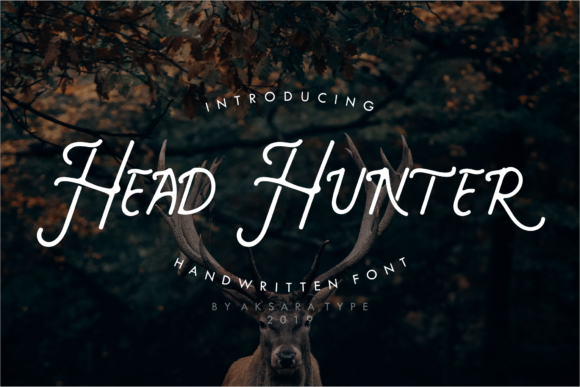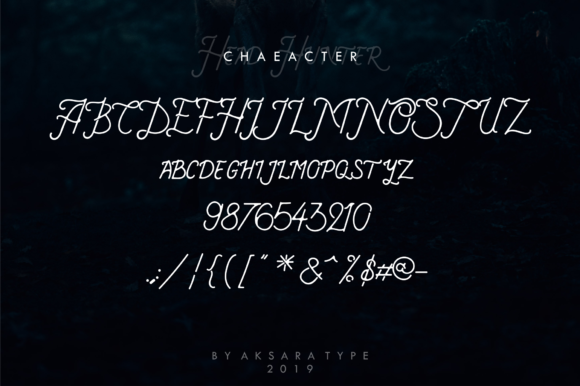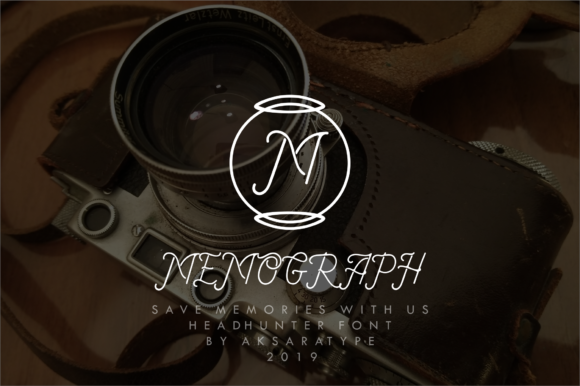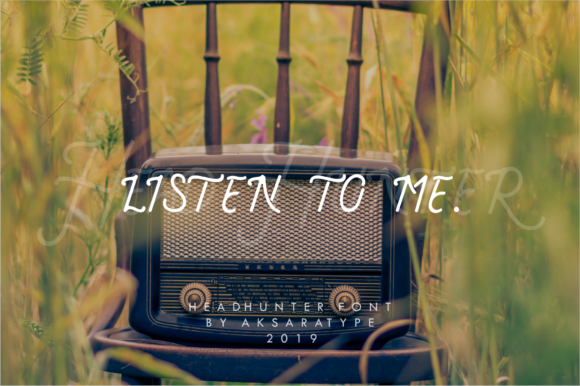
HomeScript FontsHead Hunter Font Script Fonts Head Hunter Font FacebookXPinterestWhatsApp Head Hunter Font Poster 2 Head Hunter Font Poster 3 Head Hunter Font Poster 4 Head Hunter Font Poster 5 About Head Hunter Font Head Hunter is classic handwritten font with a vintage touch. Its unique look will make any design stand out! DOWNLOAD NOW People also explored Breadr Sunday Vintage Font Cannodya Font Holdenisty Font Bentosa Beach Sea Font Doblier Font Angika Jaya Font Playbill Font 410 0 TagsHead Hunter Font Previous articleAnderella FontNext articleRastapick Font LEAVE A REPLY Cancel reply Comment: Please enter your comment! Name:* Please enter your name here Email:* You have entered an incorrect email address! Please enter your email address here Website: Save my name, email, and website in this browser for the next time I comment. Personal Use Free Rellista Script Personal Use Free Read more about this font Over the Top Personal Use Free Read more about this font BD AsciiMax Personal Use Free Read more about this font Rina Personal Use Free Read more about this font BLOG Top 7 Google Fonts Alternatives for Faster and Privacy-Friendly Web Design (2025) Top 7 Google Fonts Alternatives for Faster and Privacy-Friendly Web Design (2025) When it comes to web typography, Google Fonts has long been the go-to... How to Install and Use Fonts on Windows, macOS, and Web Projects Using Fonts in Digital Marketing: Tips to Strengthen Your Brand Identity Fonts That Capture the Spirit of New York City